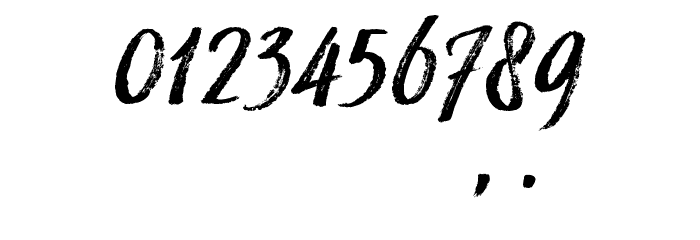
Hesster Mofet DIRTY_TRIAL Font
Hesster Mofet DIRTY_TRIAL Description
This font features a dynamic and expressive style, characterized by its brush-like strokes and textured appearance. The uppercase and lowercase letters exhibit a fluid, cursive form with varying stroke widths, giving it a hand-painted look. The numerals and special characters maintain this artistic flair, contributing to an overall cohesive design. The texture within each character adds a sense of movement and energy, making it ideal for creative and bold applications. Its unique style captures attention and conveys a sense of individuality and artistic expression.
A dynamic, brush-style font with textured, cursive strokes from Uncategorized fonts.
- Proposed Projects: Ideal for artistic projects, branding, posters, and invitations where a bold, creative statement is desired.
- Use Case: Logos, Headlines, Artistic projects